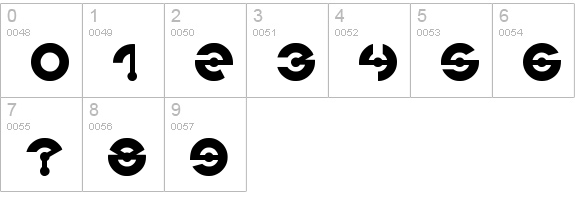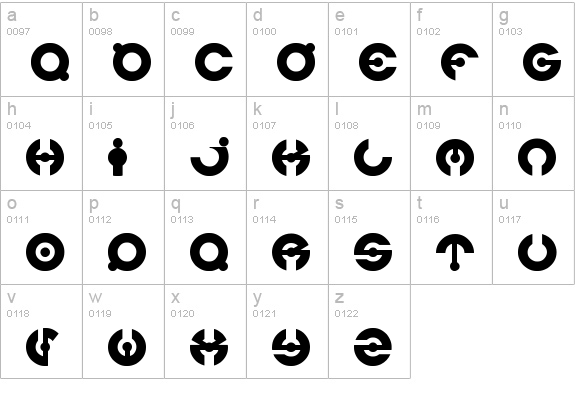
Introducing the JamesGlover Font, a captivating typeface that effortlessly combines elegance and uniqueness. This versatile font is perfect for a wide range of design projects, from branding and logos to invitations and packaging. With its modern yet classic aesthetic, JamesGlover Font is sure to make a lasting impression. Its carefully crafted letterforms exude sophistication and style, making it a standout choice for any creative endeavor. Whether used in headings or body text, this font adds a touch of refinement to any design. What sets JamesGlover Font apart is not only its stunning appearance but also its accessibility. This font is available for free download exclusively at FontsMarket.com, making it easily within reach for designers, entrepreneurs, and creatives alike. Say goodbye to restrictive licensing agreements and hello to the freedom of using a high-quality font without breaking the bank. JamesGlover Font is designed with versatility in mind, allowing you to explore various design possibilities. Its clean lines and balanced proportions make it equally suitable for both print and digital applications. Whether you are designing a website, creating impactful social media graphics, or developing a magazine layout, this font will elevate your project to new heights. In addition to its aesthetic appeal, JamesGlover Font also boasts a wide range of characters and glyphs, ensuring support for multiple languages and typographic variations. Its extensive character set allows for seamless integration with various design software and platforms, making it a reliable choice for designers across the globe. Embrace the elegance and charm of the JamesGlover Font and unlock a world of design possibilities. Download it for free at FontsMarket.com and let your creativity soar.